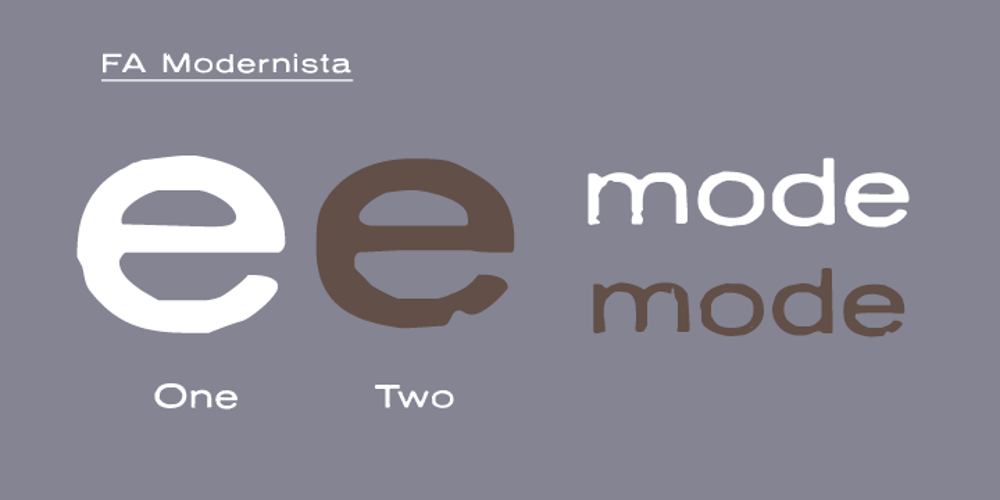
Modernista FA
Modernista FA font
Modernista FA Font Family was designed by Artur Frankowski and published by Fontarte. Modernista FA contains 2 styles and family package options. An inspiration for two fonts of FA Modernista was the second page of Polish vanguard magazine “Praesens” Nr 1 from 1926 designed (as the first page) by Henryk Stażewski. The type applied – Baccarat was a sans serif from Polish foundry Jan Idźkowski i S-ka. Fonts FA Modernista imitate the effect of letterpress with spilled printing ink. Letters of two cuts vary in distortion as in the old days of letterpress technology.